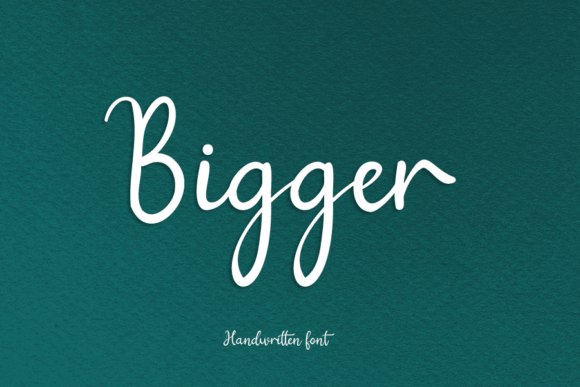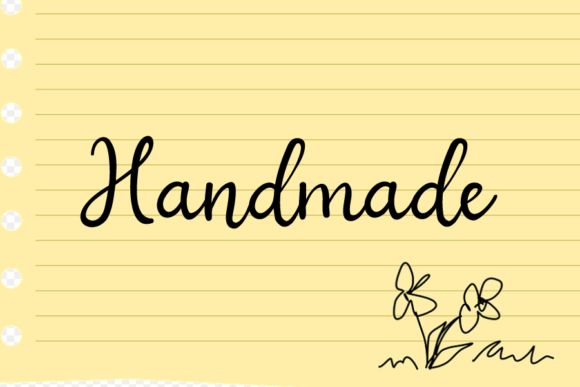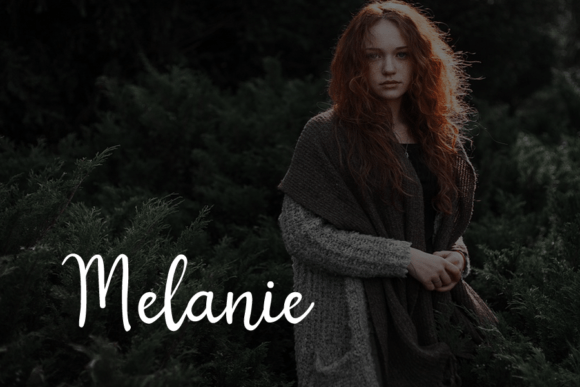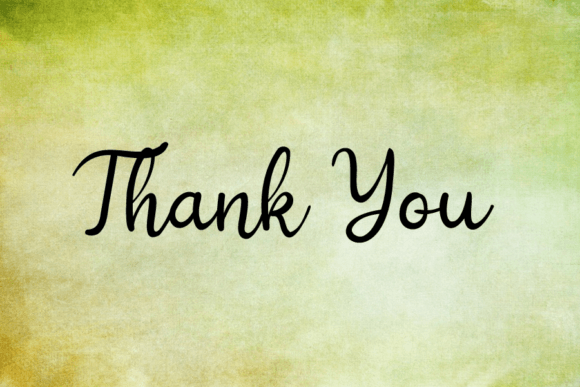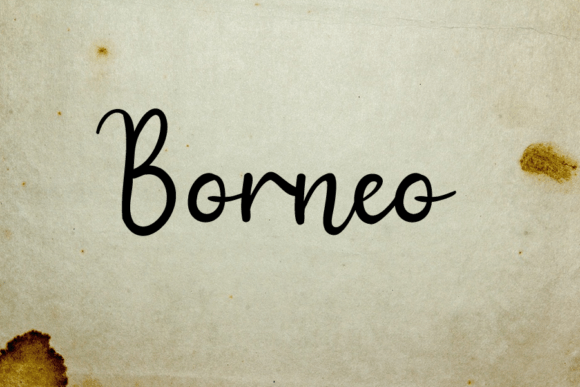
Bigger Font
About Bigger Font
Bigger is a lovely handwritten font featuring charming, playful characters that seem to dance along the baseline. Add this font to your most creative ideas, and notice how it makes them stand out!